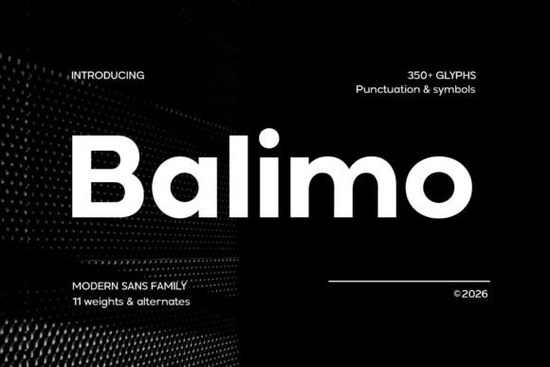
Looking for a clean, modern typeface that works just as well on a website as it does on a printed flyer? The Balimo Font is a geometric sans serif designed for exactly that kind of versatility. With its balanced proportions and consistent letter spacing, it handles everything from bold headlines to small body copy without losing readability. If you're a designer, small business owner, or print-on-demand seller searching for a reliable modern typeface, this one deserves a closer look.
What makes Balimo different from other sans serif fonts?
Plenty of sans serif fonts look good at large sizes but fall apart in smaller text. Balimo avoids that problem. Every character is built with a clean geometric structure and refined proportions, which means the rhythm stays consistent whether you're setting a 72pt heading or 12pt paragraph text. That kind of balance matters when you're working on projects where every detail counts like branding packages, editorial layouts, or UI/UX mockups.
Compared to something like the classic Helvetica typeface, which has been an industry standard for decades, Balimo brings a fresher, more contemporary feel. It's minimal without being cold, and expressive without being distracting. If you've used Agootack Font for your projects before, Balimo will feel familiar but distinct.
What projects is Balimo best suited for?
Because of its versatility, Balimo fits into a wide range of design contexts. Here are some common uses:
- Branding and logos its clean geometry gives logos a professional, trustworthy look
- Website and app design consistent spacing makes it readable on screens of all sizes
- Marketing materials works well on flyers, social media graphics, and email headers
- Editorial and publishing handles both headlines and body text with equal clarity
- Print-on-demand products clean enough for quotes, slogans, and minimalist designs
If you're already using Pretzel for your projects, Balimo offers a similar modern sensibility but with a more structured, geometric backbone. It pairs well with both serif and script typefaces, giving you flexibility when building out a full design system.
Does Balimo work well for print-on-demand and small business branding?
Short answer: yes. One of the biggest challenges for POD sellers and small business owners is finding fonts that look good across different products and platforms. A typeface that looks sharp on a mug might not translate well to a business card or a Shopify storefront.
Balimo's consistent rhythm and spacing solve that problem. Its refined proportions keep text looking polished whether it's printed on merchandise or displayed on a website. For small businesses building a brand from scratch, having one reliable typeface that carries across all touchpoints saves time and keeps everything looking cohesive.
How does Balimo compare to other modern sans serif options?
There's no shortage of modern sans serif fonts available today, but not all of them are built with the same attention to spacing and proportion. Some look great in previews but fall short when you start using them in real layouts.
Balimo stands out because of its geometric foundation combined with practical readability. It doesn't try to be flashy it focuses on doing its job well. That makes it a solid choice for designers who want a typeface that supports their layout rather than competing with it.
Is Balimo worth adding to your font collection?
If you regularly work on branding, editorial, or digital design projects, a well-built geometric sans serif is a must-have. Balimo delivers that with a contemporary tone that feels current without following short-lived trends. It's the kind of font you'll reach for again and again because it simply works.